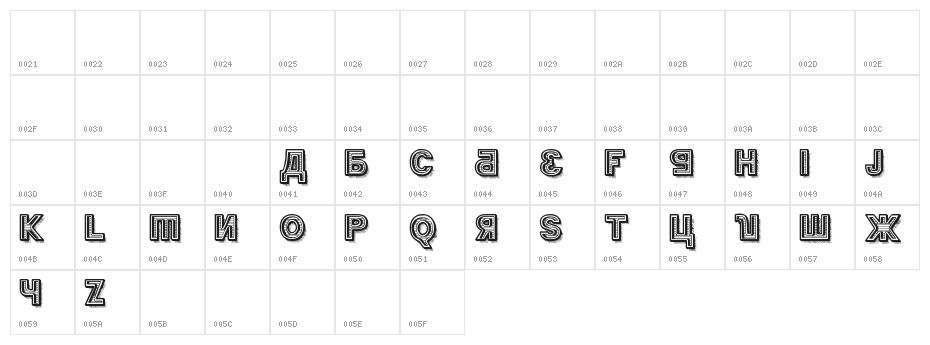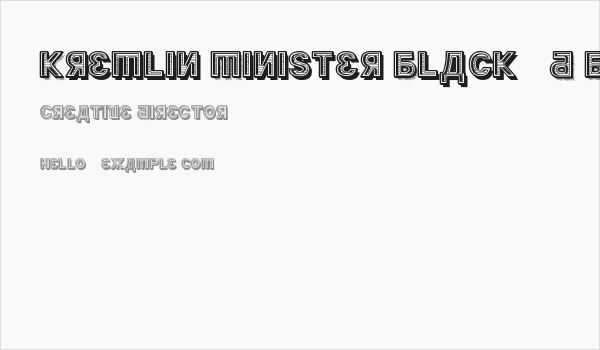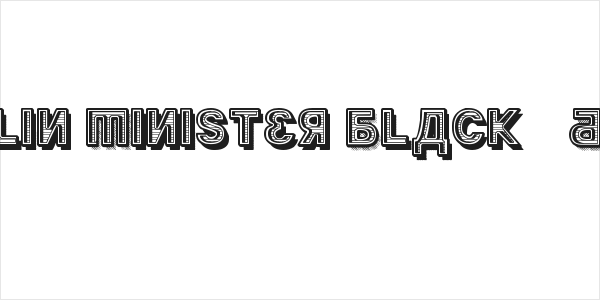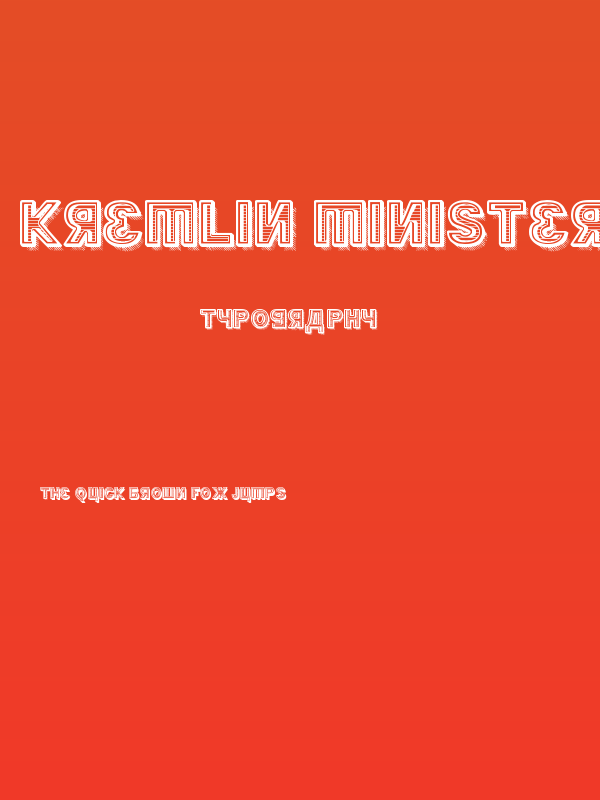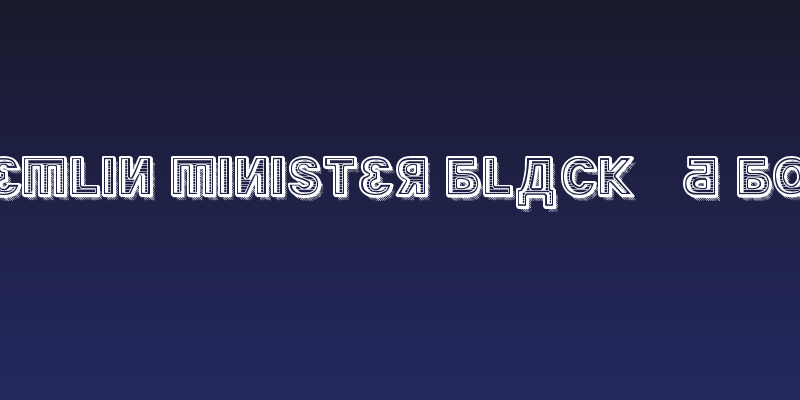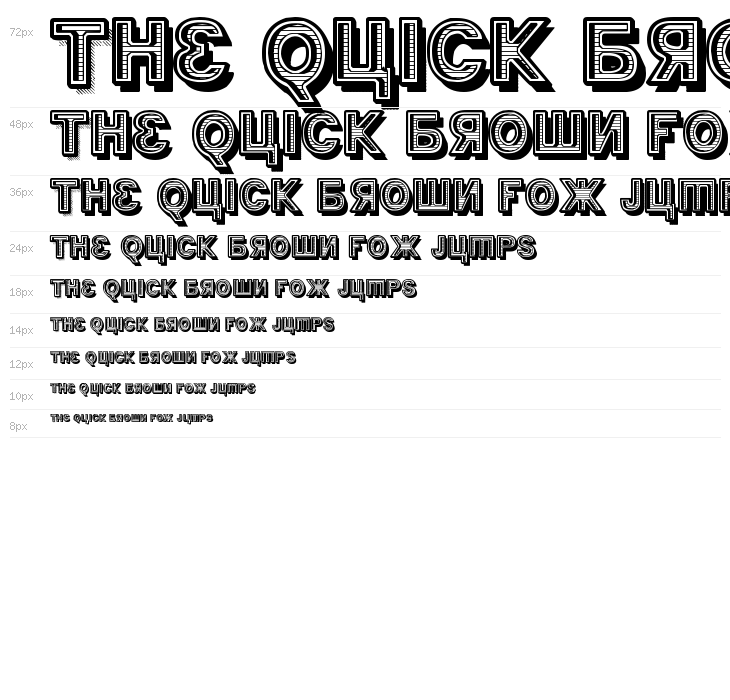
Kremlin Minister Black 3D Bold Font
Kremlin Minister Black 3D Bold Description
This font features a bold, three-dimensional design with a distinct black outline and intricate inner detailing. The characters are uppercase Cyrillic letters, showcasing a strong, impactful presence. The 3D effect is achieved through a combination of shading and line work, giving each letter a sense of depth and solidity. The style is reminiscent of traditional Russian architectural elements, with a modern twist. The font's boldness and decorative nature make it suitable for attention-grabbing headlines or artistic projects that require a touch of cultural flair.
| Proposed Projects | Ideal for posters, cultural event promotions, branding, and artistic projects requiring a bold statement. |